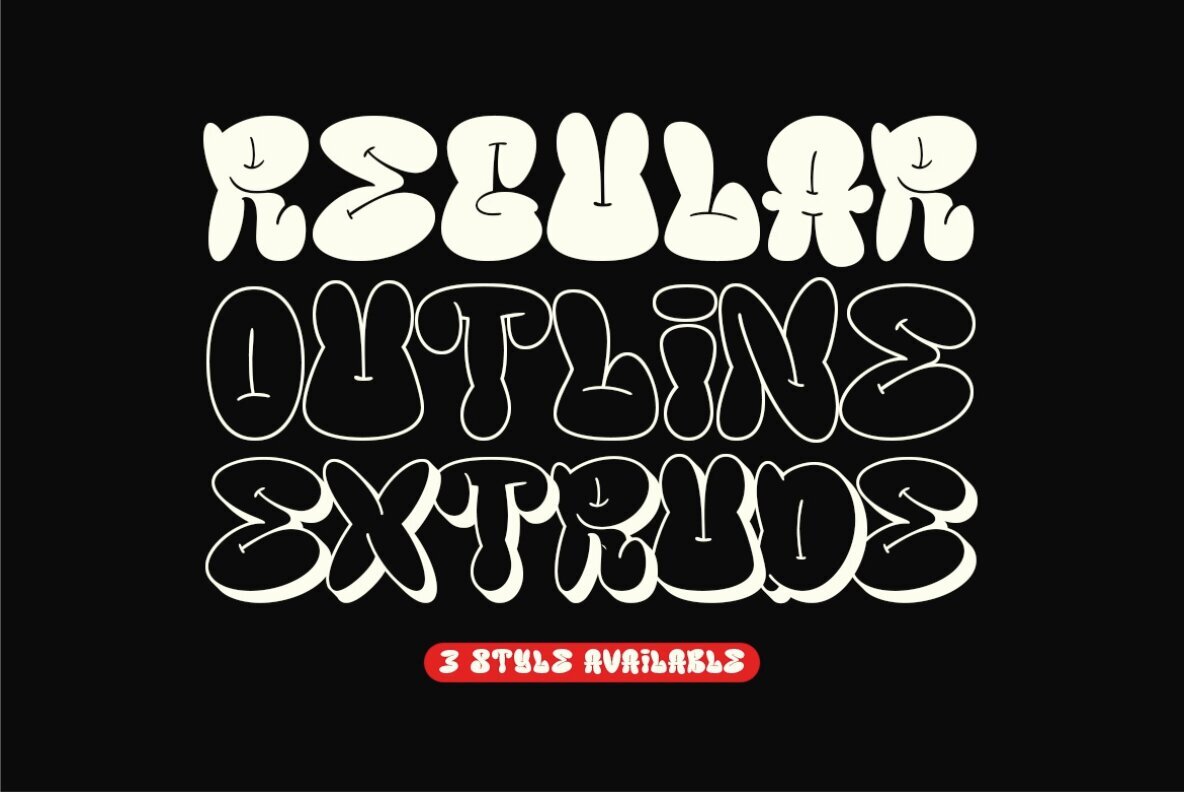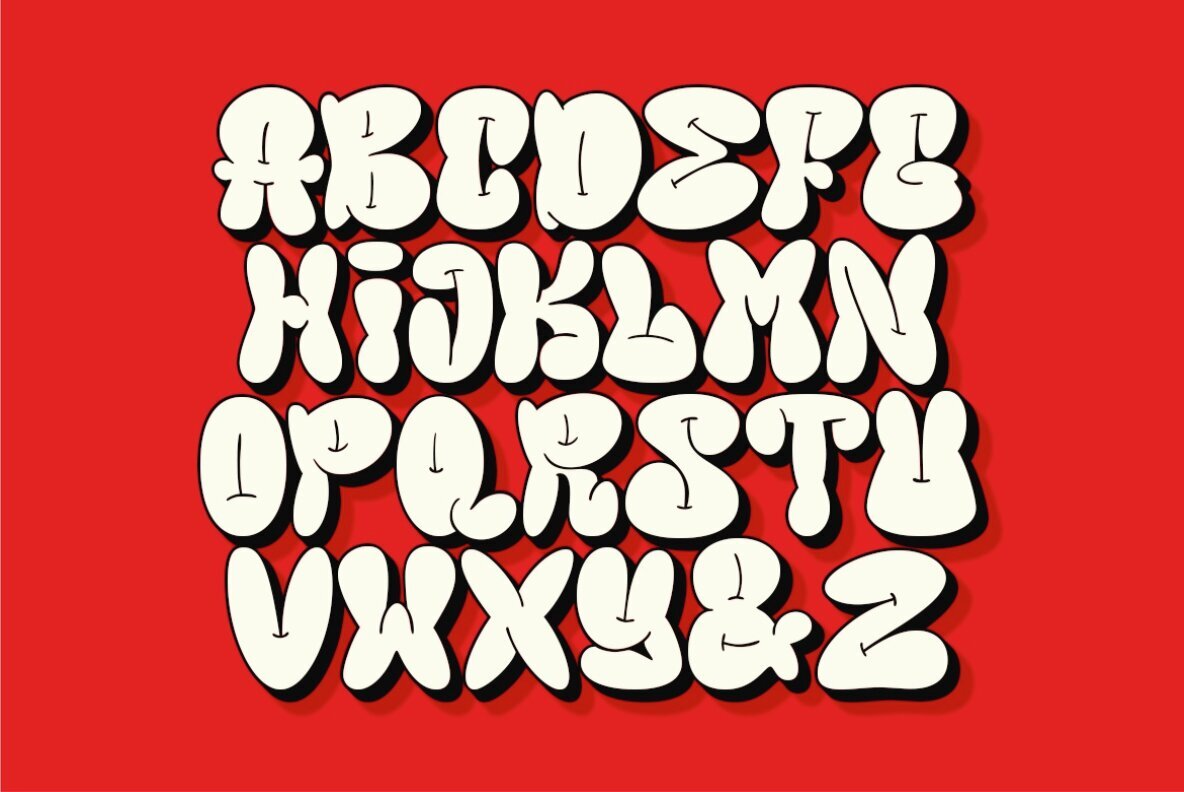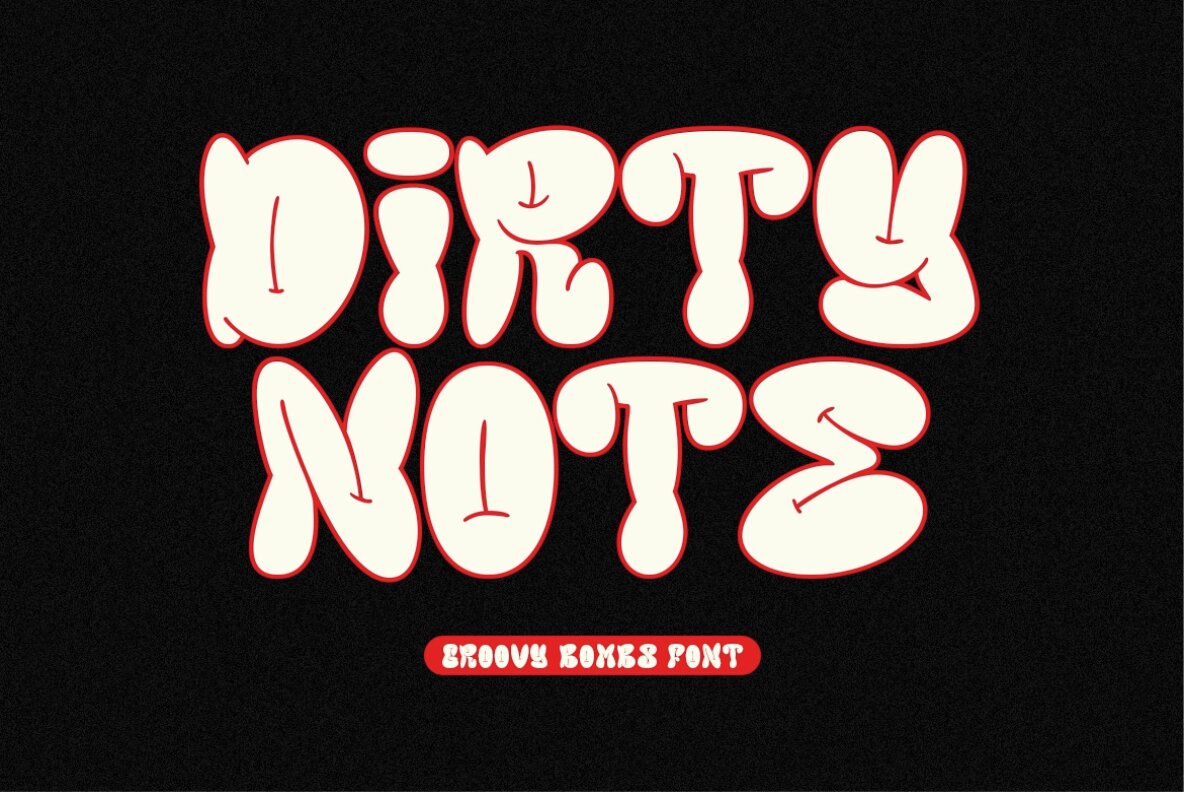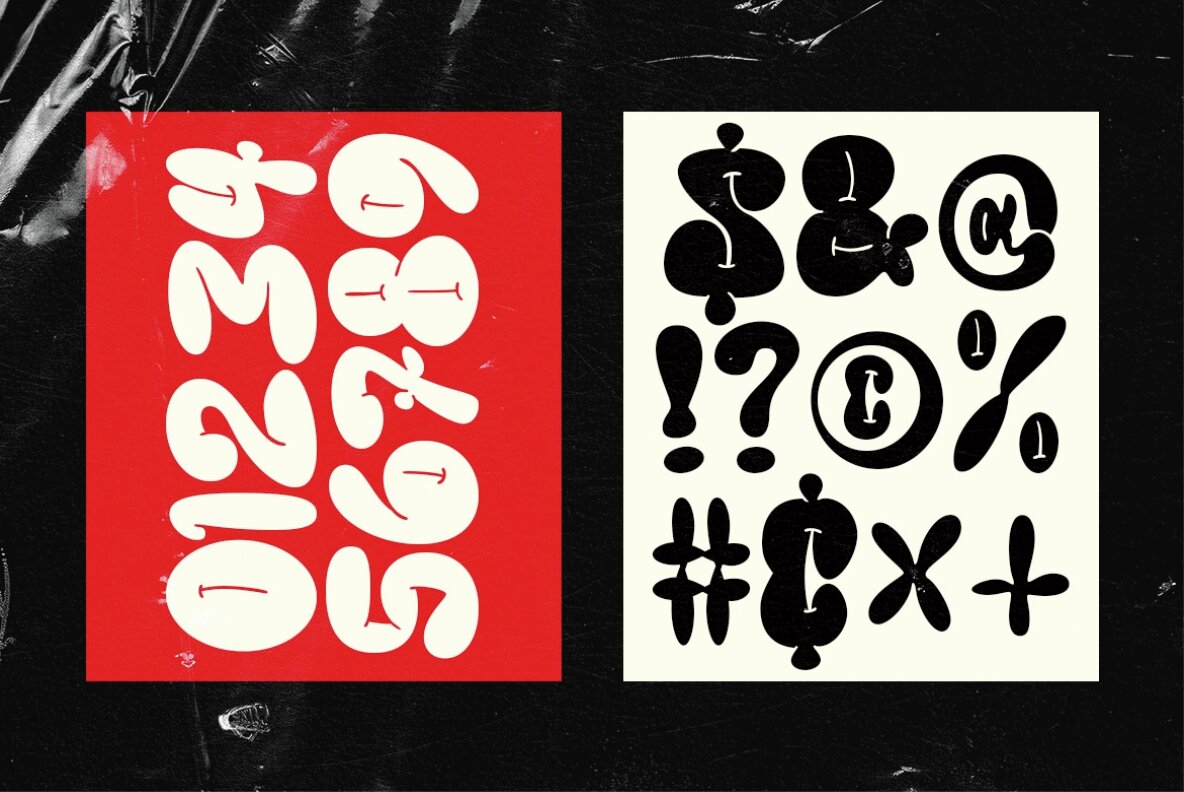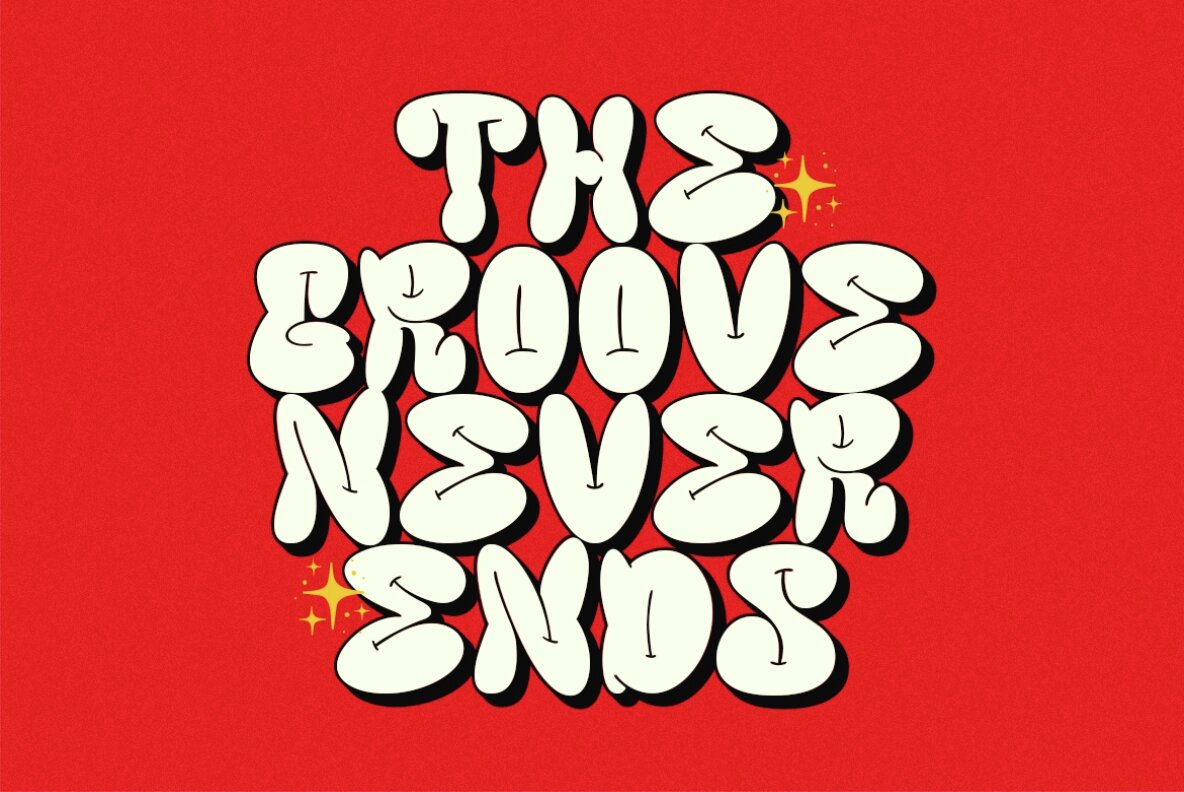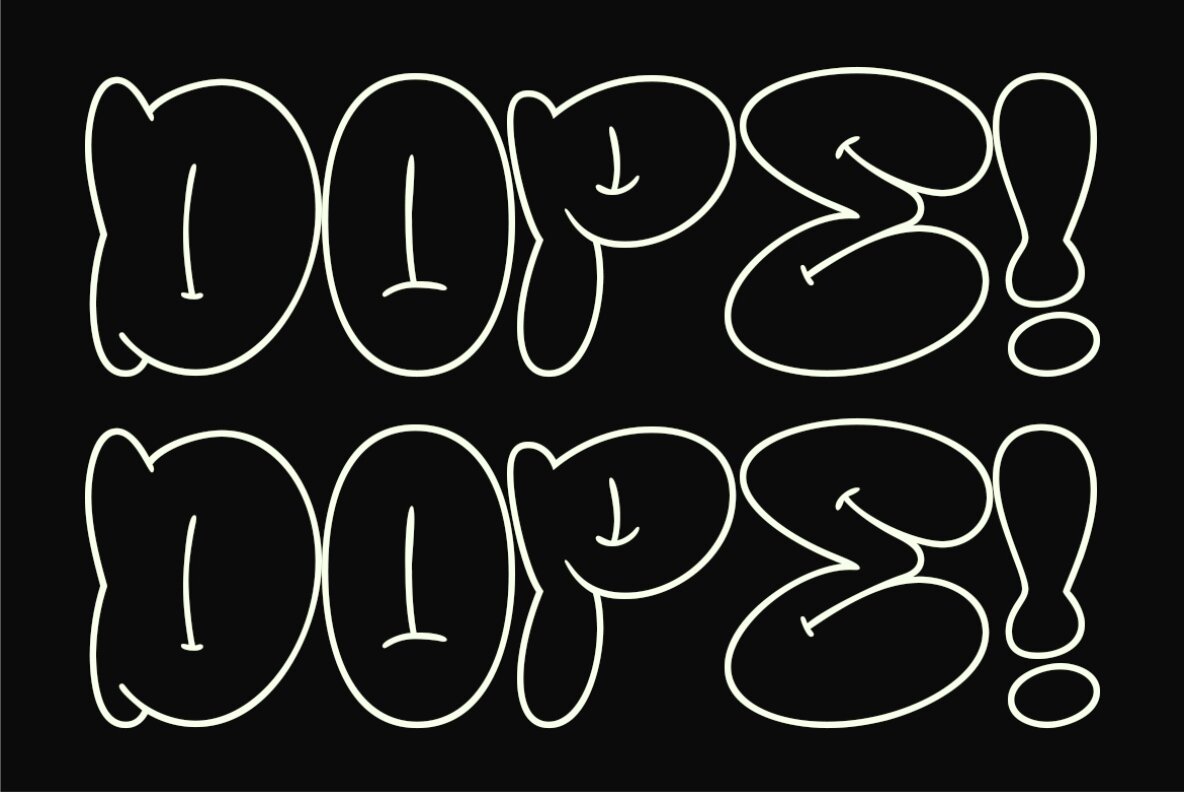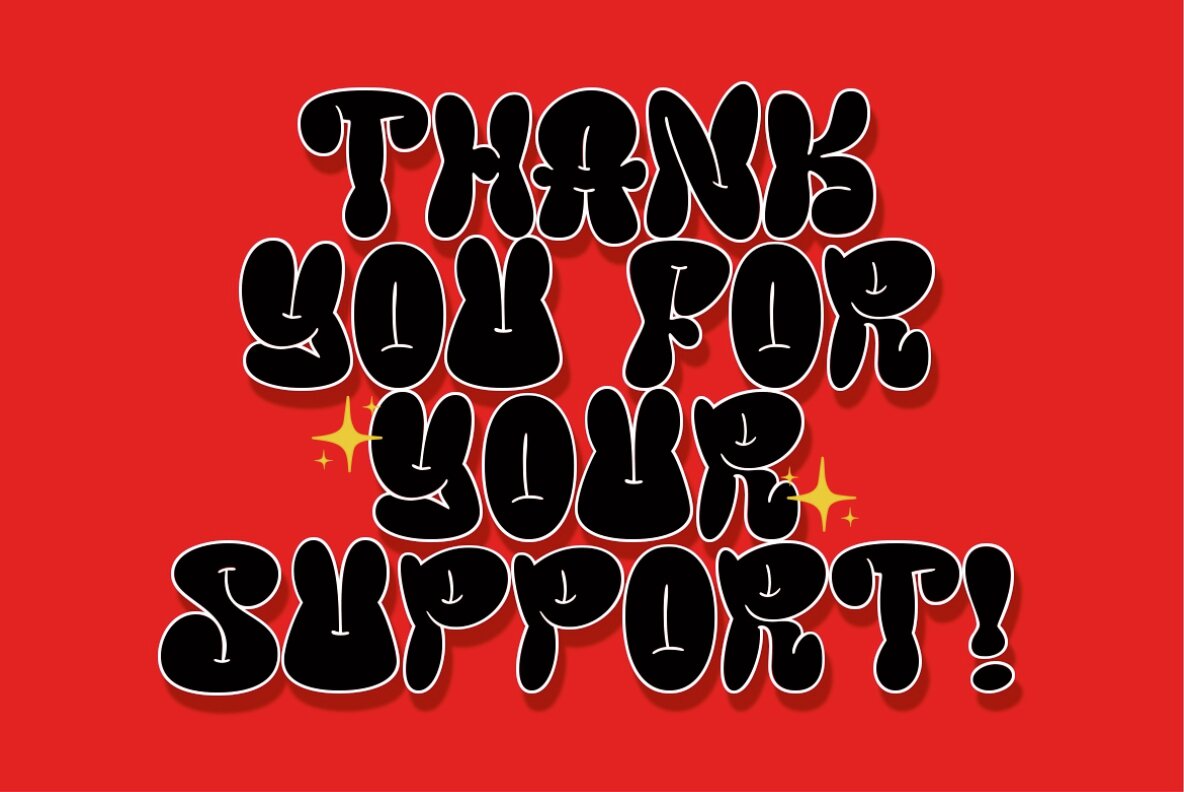
Groovy Bombs Font
Groovy Bombs is a striking display font that seamlessly combines a groovy aesthetic with a hint of graffiti flair. This font comes in three distinct styles—regular, outline, and extrude—providing versatile options for creative projects. Its casual style and retro vibe make it ideal for designs that aim to capture a sense of nostalgia and urban cool.
Perfect for posters, logos, or apparel, Groovy Bombs ensures each project makes a bold statement while leaving a memorable impression. The unique blend of styles offers designers flexibility in achieving the desired look for any creative production.